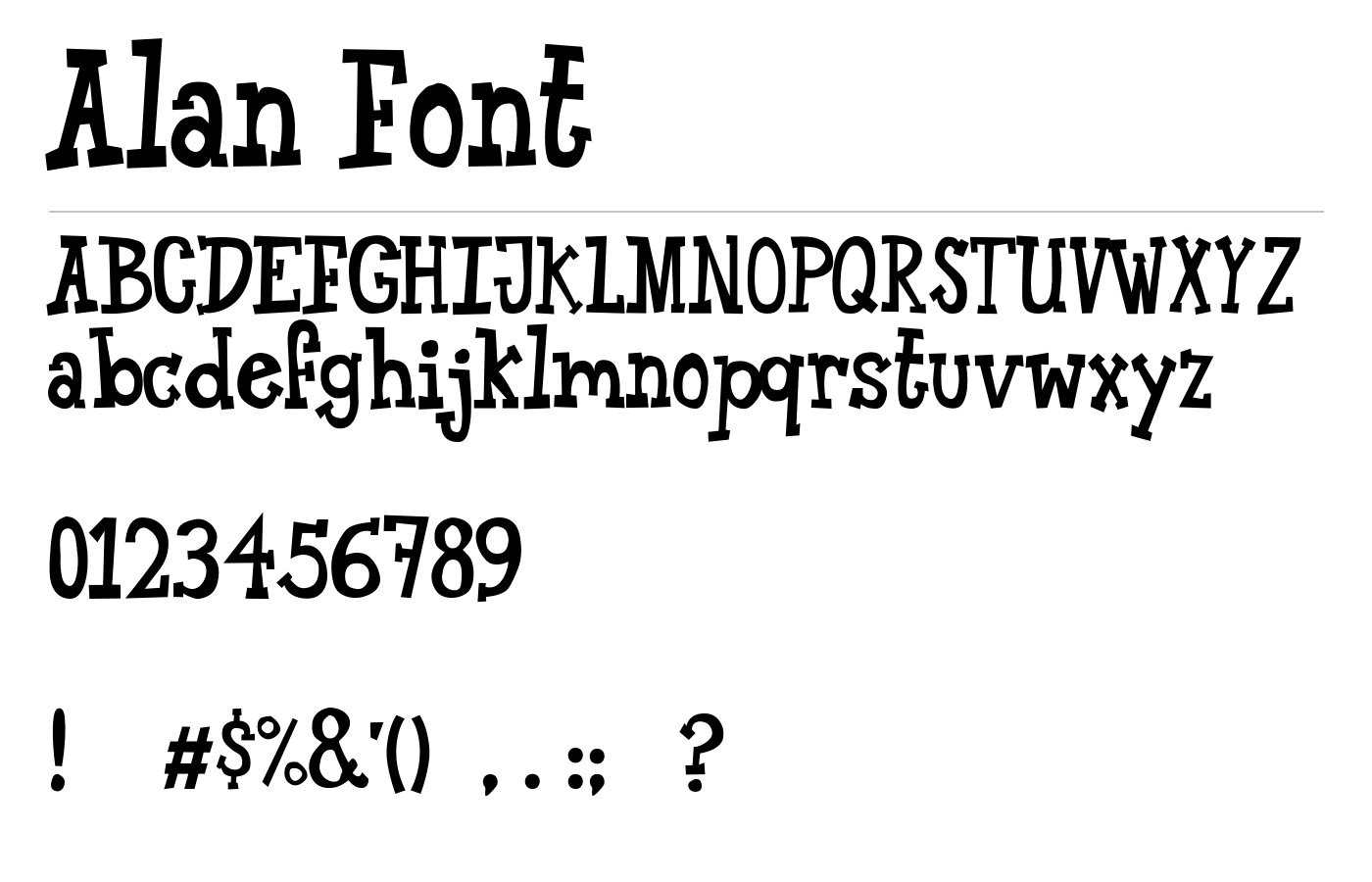
Alan Font is a playful and quirky serif typeface with a whimsical, slightly uneven character that gives it a hand-crafted feel. Its bold weight and irregular shapes make it perfect for fun, informal designs like posters, children's books, or creative branding where a lively, approachable personality is desired. Its unique style stands out best in headlines and display uses rather than long texts.
Alan Font
About Alan Font
| Font family | Alan Font |
| Designer | Alan Orozco |